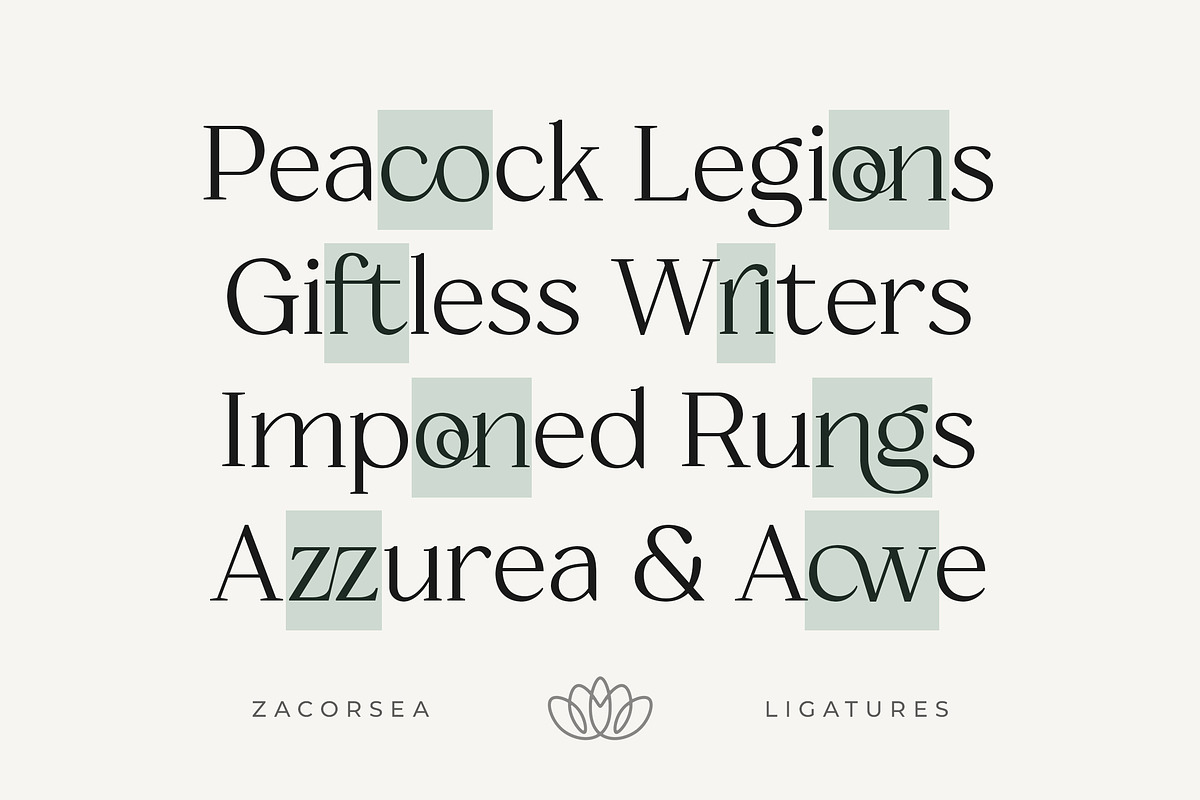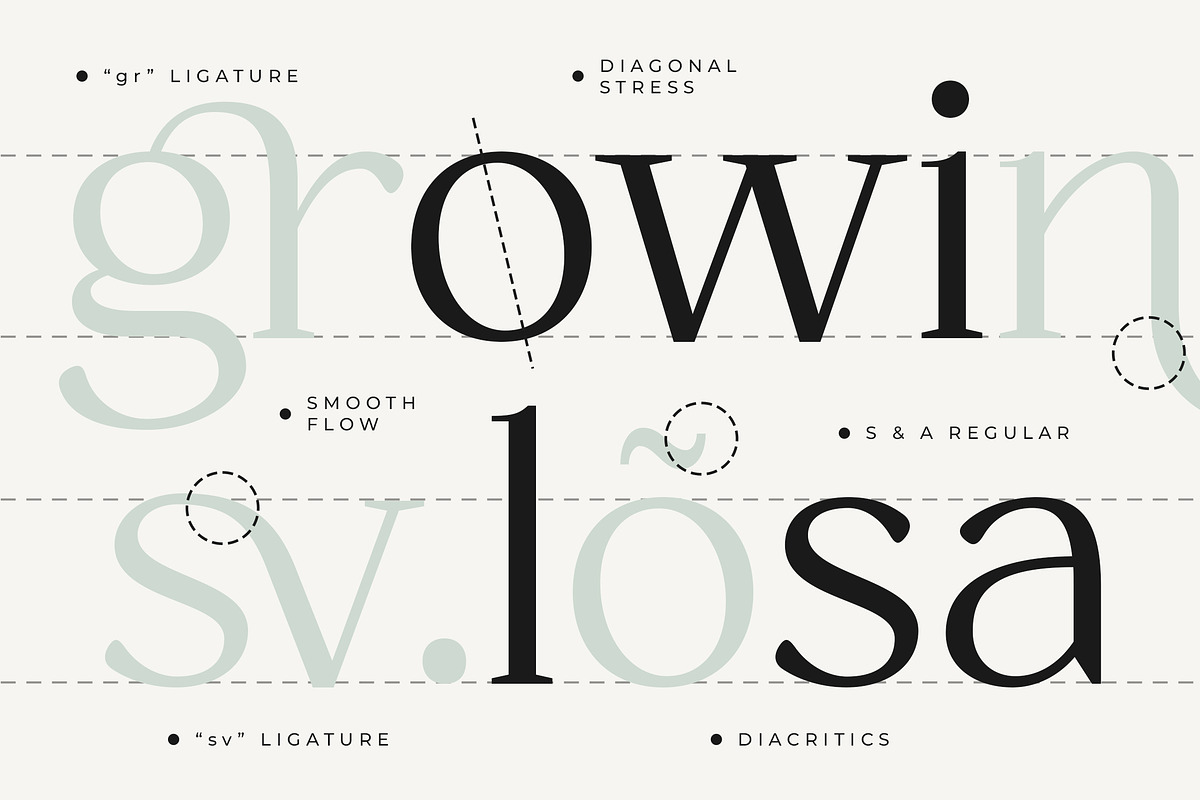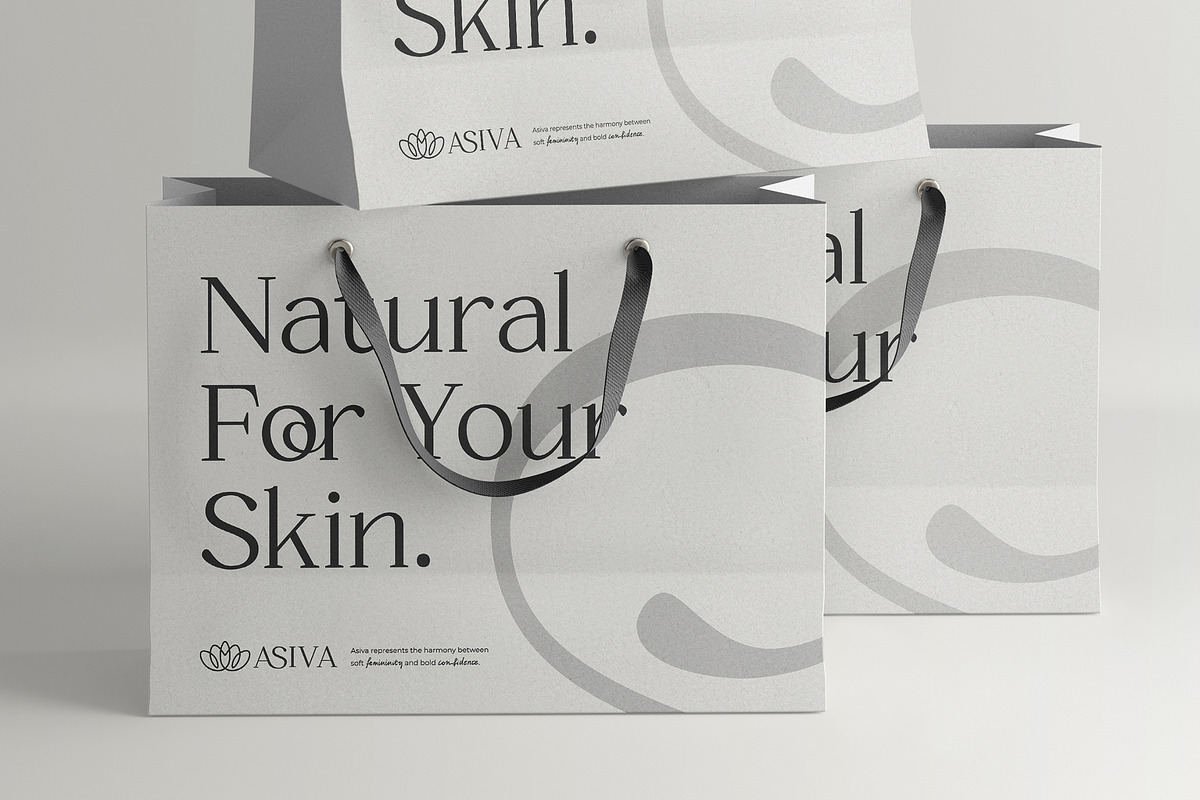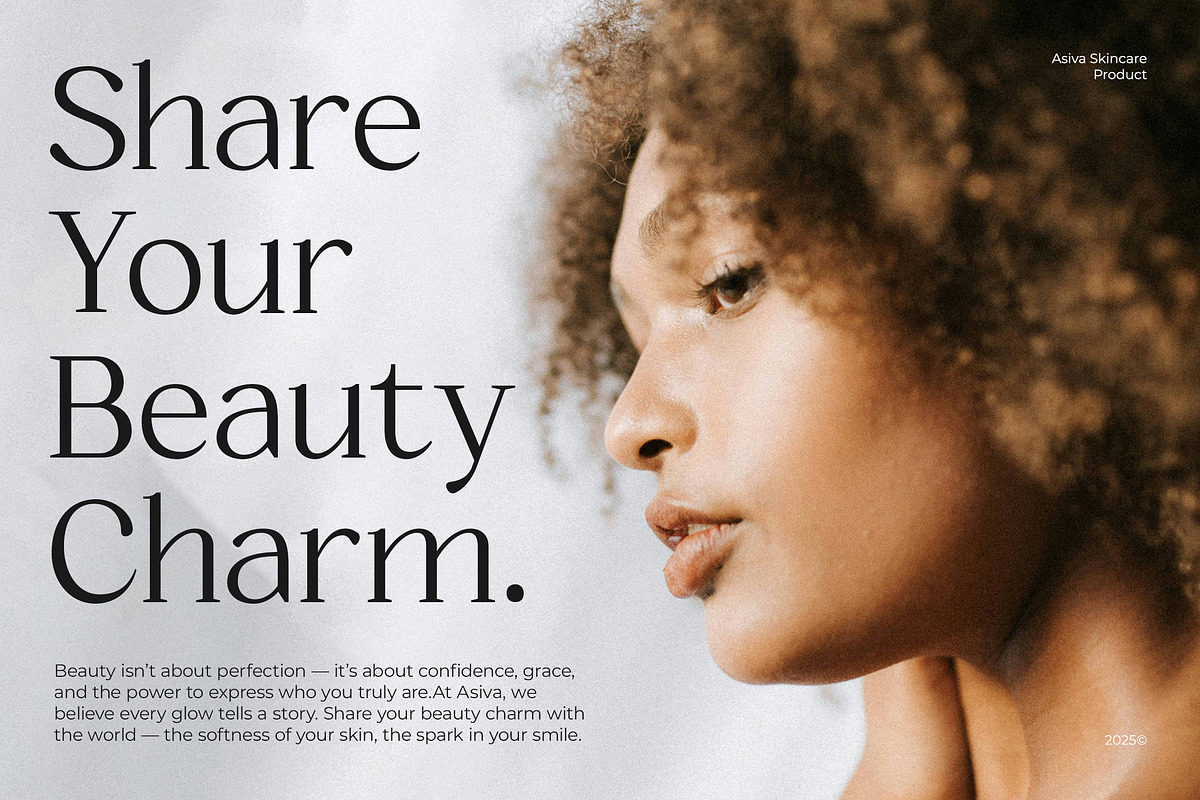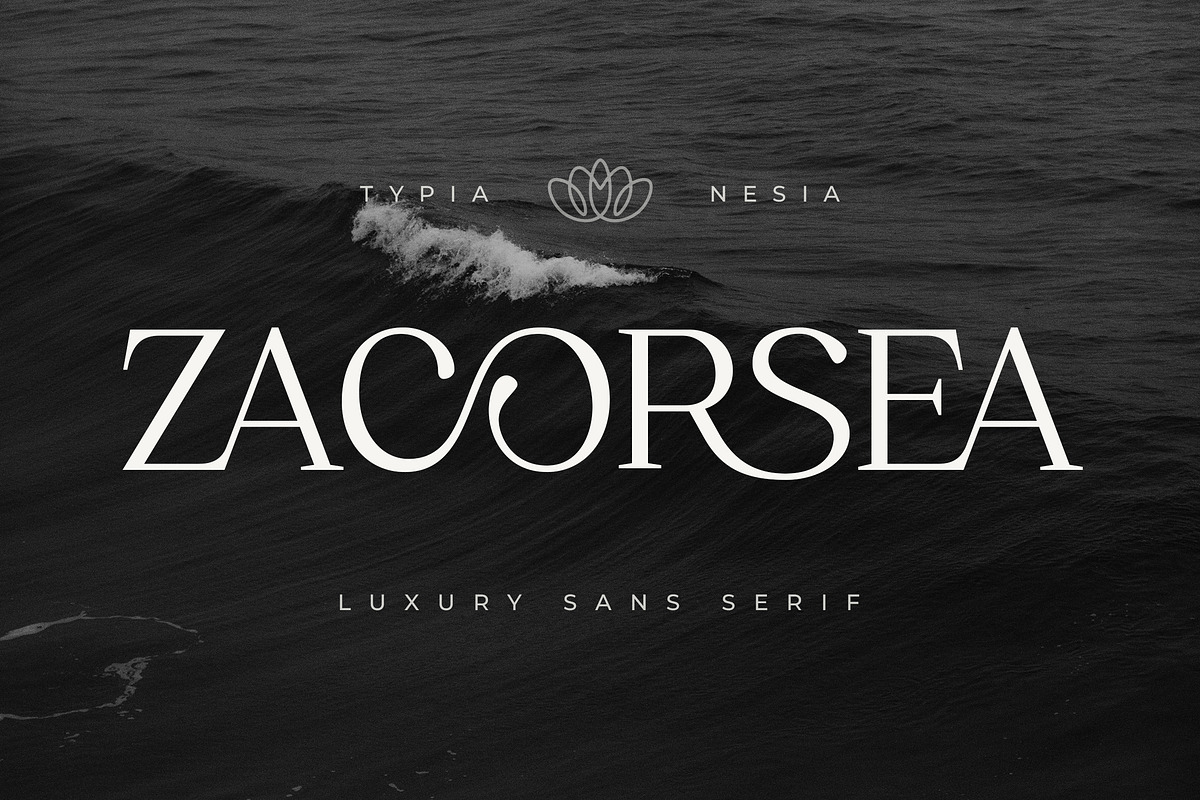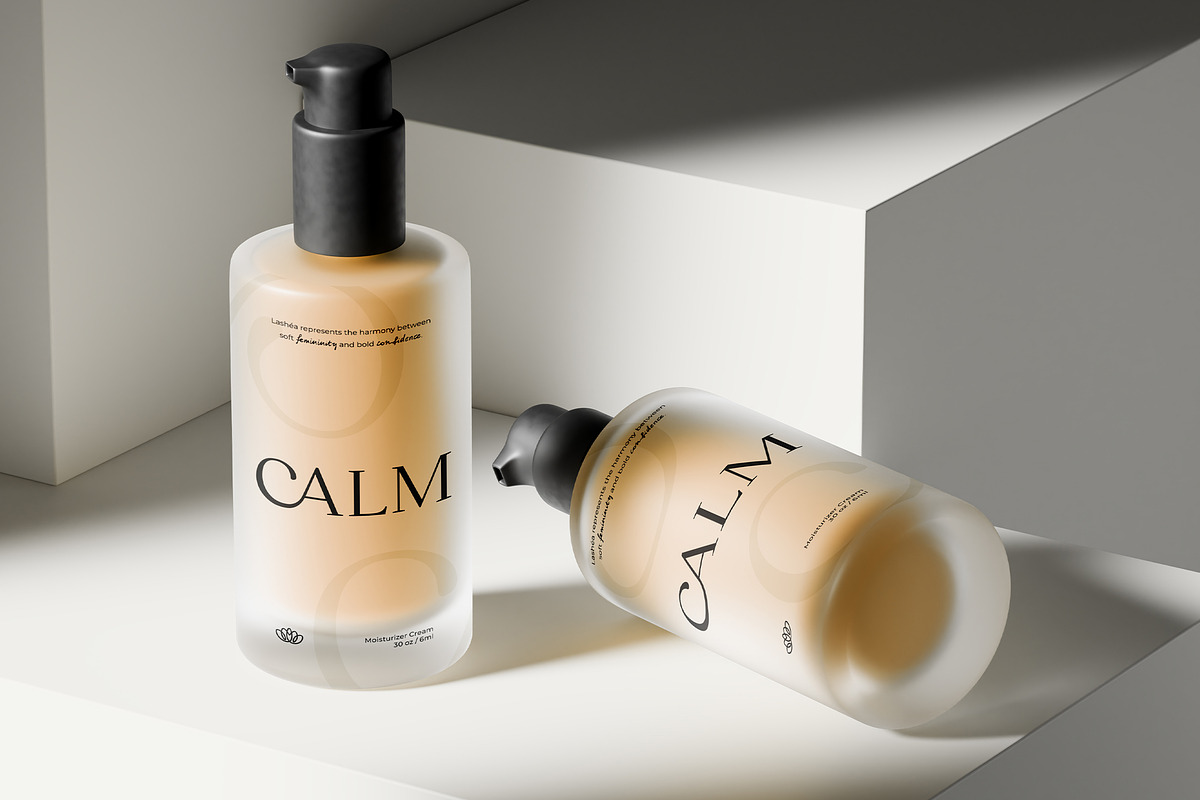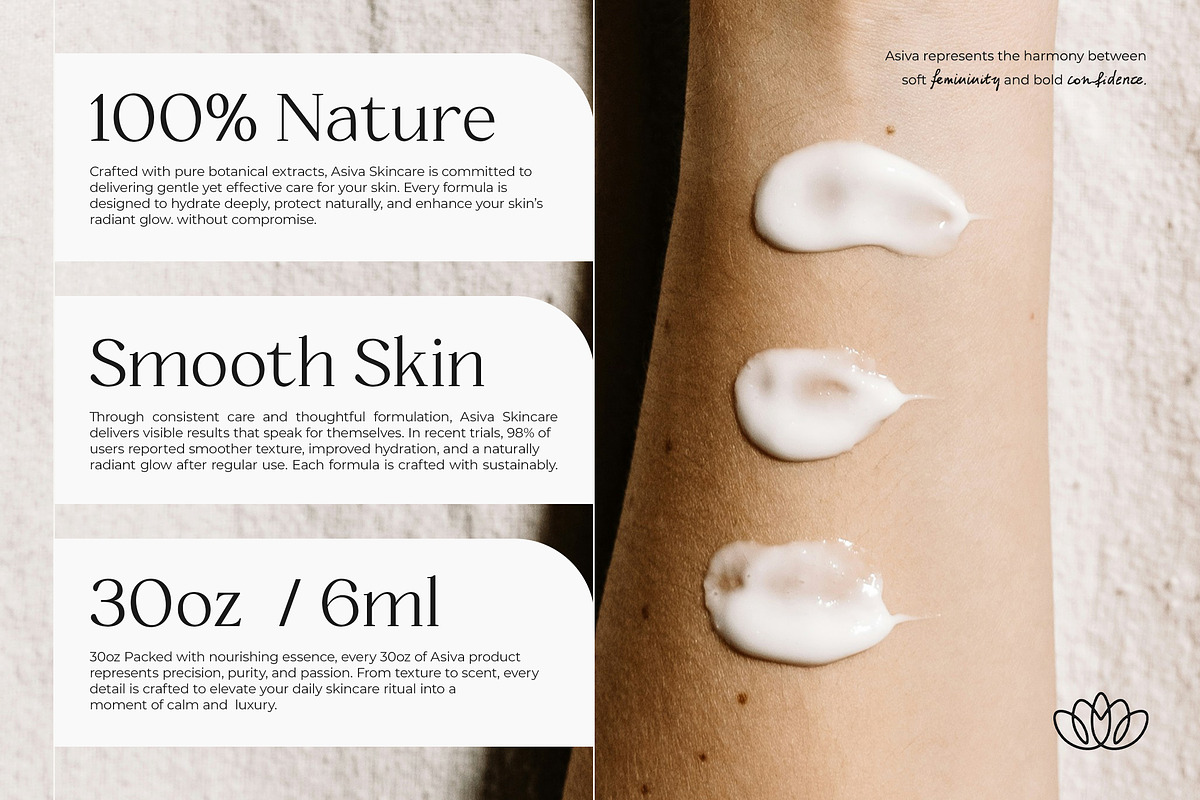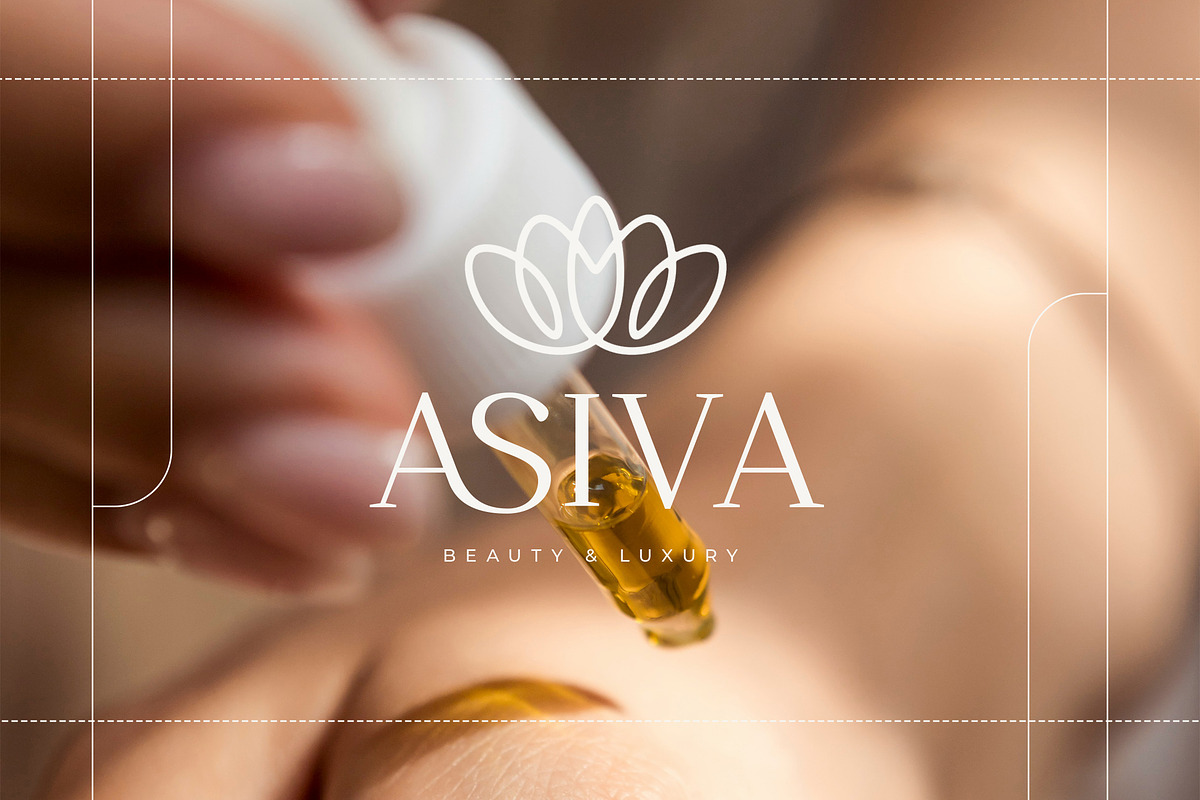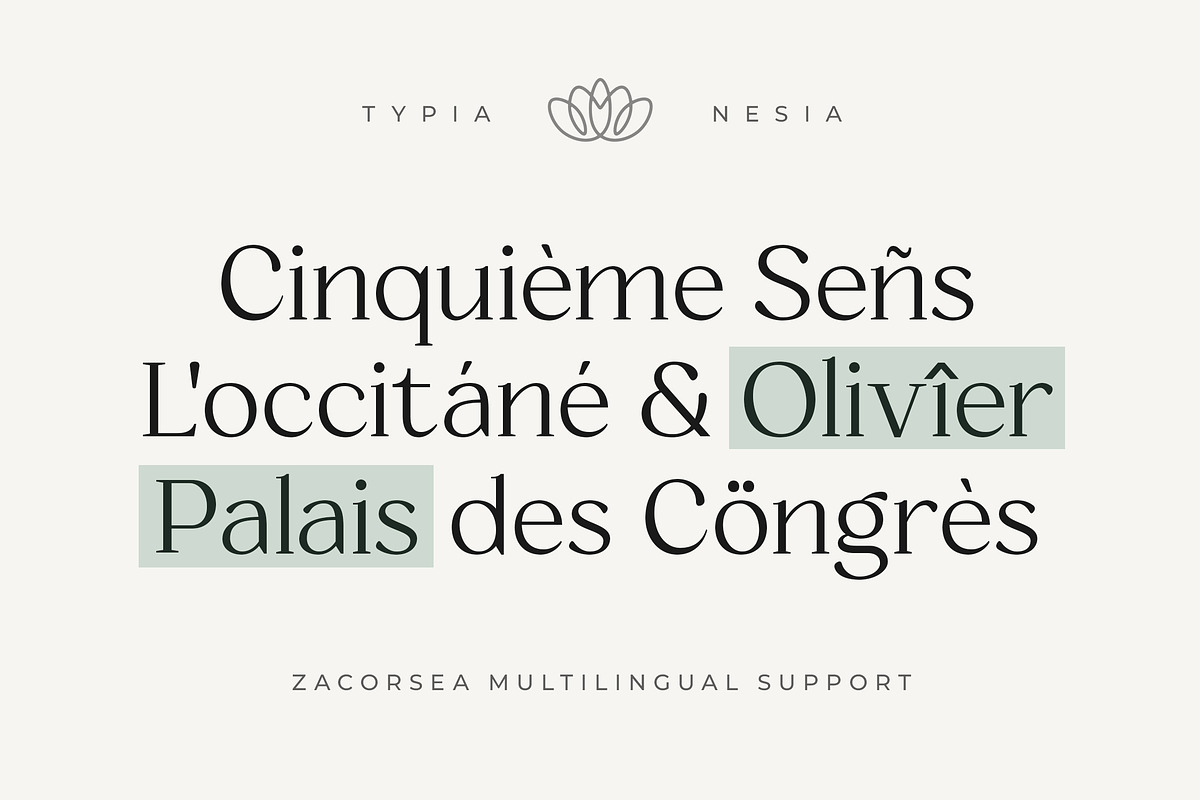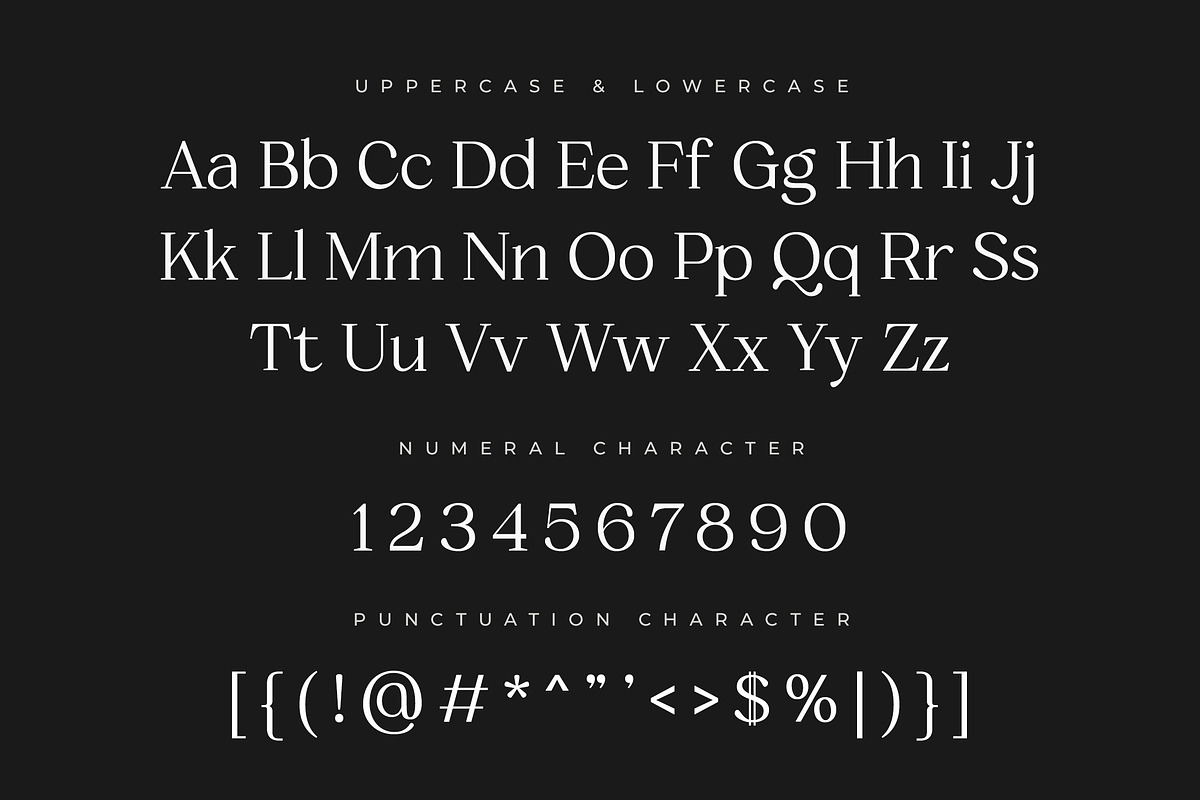
Zacorsea – Beauty Elegant Ligature
Zacorsea – Beauty Elegant Ligature Serif - Modern Luxury Logo Font
Zacorsea is a Modern Elegant Luxury Serif font designed to express timeless beauty, femininity, and royal sophistication. Featuring graceful curves, refined letterforms, and beautifully crafted ligatures, this font delivers a classy and high-end aesthetic ideal for beauty branding, cosmetic and skincare packaging, fashion labels, wedding invitations, luxury logos, posters, premium product designs any project that requires a touch of modern beauty and elegance. Zacorsea blends modern serif elegance with a soft feminine touch, making it perfect for brands that seek an exclusive, polished, and luxurious visual identity.